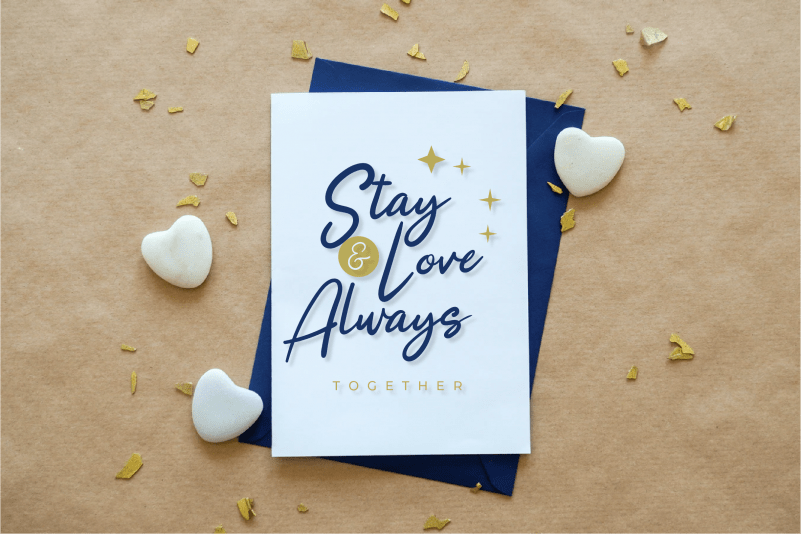
Lovely Baby Calligraphy Font
Lovely Baby Calligraphy Font results out of a stunning pairing of a brush pen and pencil that makes it look incredibly endearing and authentic. Use this gorgeous and unique handwritten font to bring any DIY project to life!